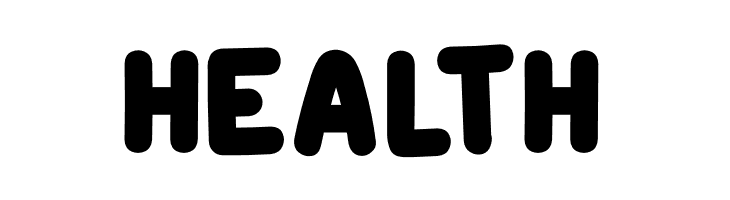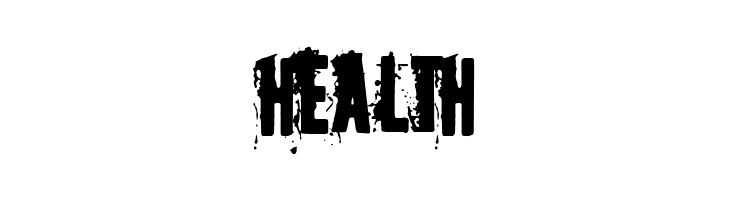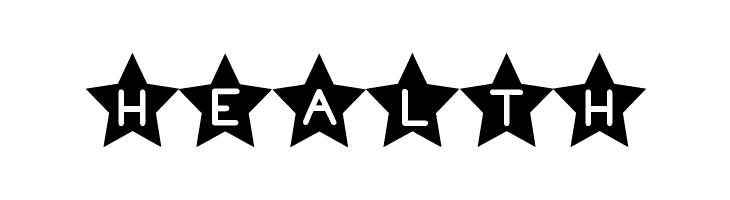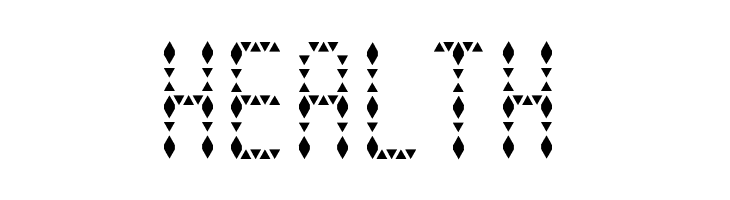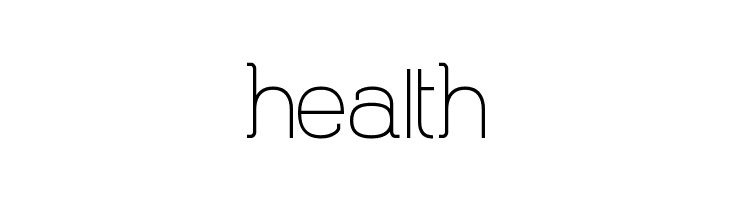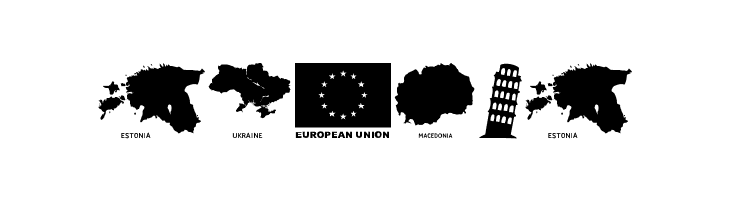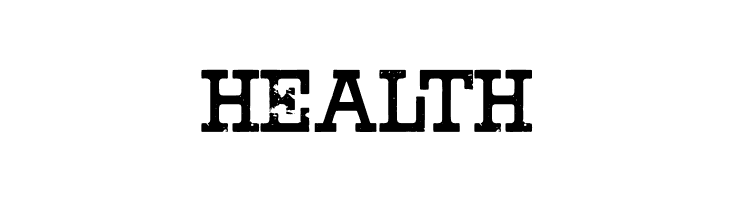
• Eroded Denim
A distressed, slab serif font with a rugged, worn appearance.
• Escabetxina
A bold, distressed font with splattered, grunge-style characters.
• Eskimo and Polar Bear
A playful, jagged font with an icy, adventurous feel.
• Eskimo and Polar Bear
A jagged, ice-inspired font with a playful and bold design.
• Espacio Novo Medium
A clean, geometric font with consistent stroke widths and a modern aesthetic.
• Espacio Novo Medium
A modern, geometric sans-serif font with clean lines and balanced spacing.
• Espinuda tfb
A decorative font with a geometric, triangular pattern creating each character.
• Estrellado tfb
A decorative font with bold uppercase letters enclosed in star shapes.
• ETINNE
A playful, bold font with rounded edges and a hand-drawn feel.
• Europe
Bold geometric sans-serif with clean, modern lines.